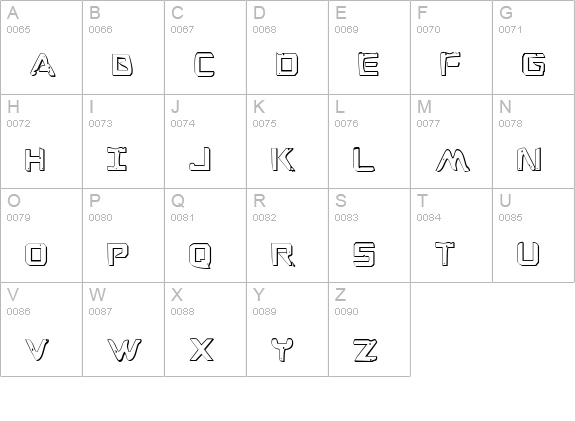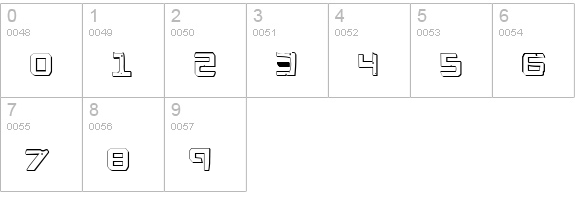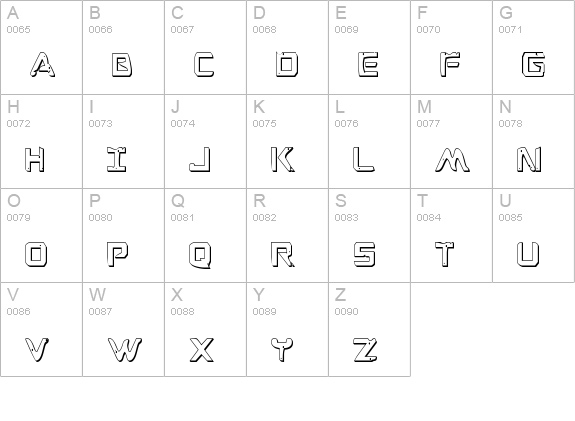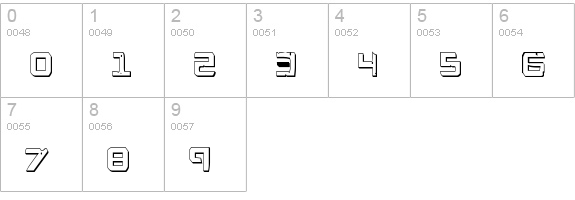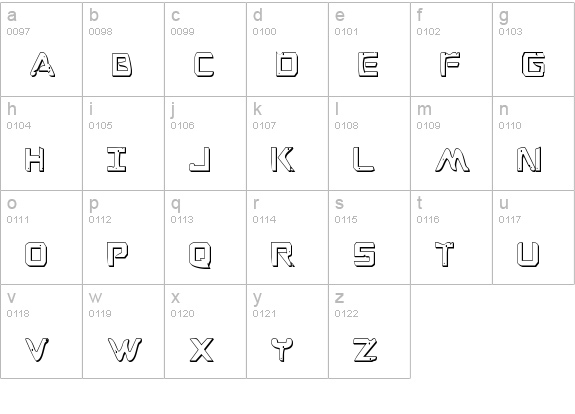
War Eagle 3D Condensed Font Details
War Eagle 3D Condensed is a distinctive, condensed-width variant in the War typeface family \xE2\x80\x94 well suited to design and typography projects.
War Eagle 3D Condensed font is a bold and striking typeface that brings a touch of three-dimensional depth to your designs. With its sleek and modern look, this font is perfect for making a statement and grabbing attention. The sharp angles and intricate details of the letters give a sense of power and strength, making it ideal for projects that require a bold aesthetic. Best of all, War Eagle 3D Condensed font is available for free download at FontsMarket.com. You can easily add this eye-catching and unique font to your collection without any cost, making it a valuable resource for designers, creatives, and anyone looking to enhance their projects with a touch of sophistication. Don't miss out on the opportunity to elevate your designs with this stunning typeface – download War Eagle 3D Condensed font today!